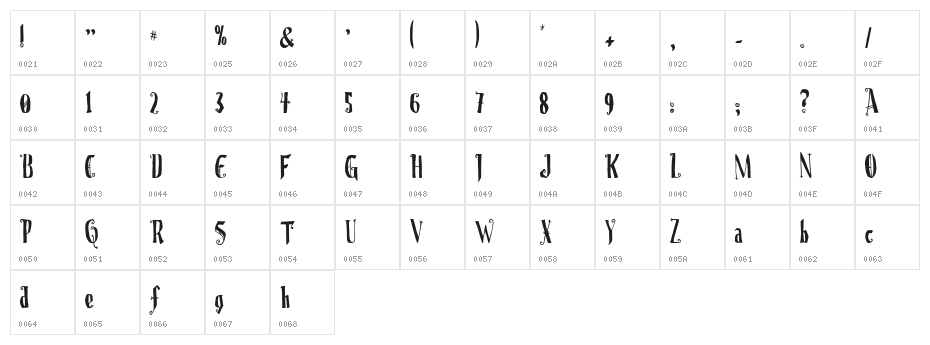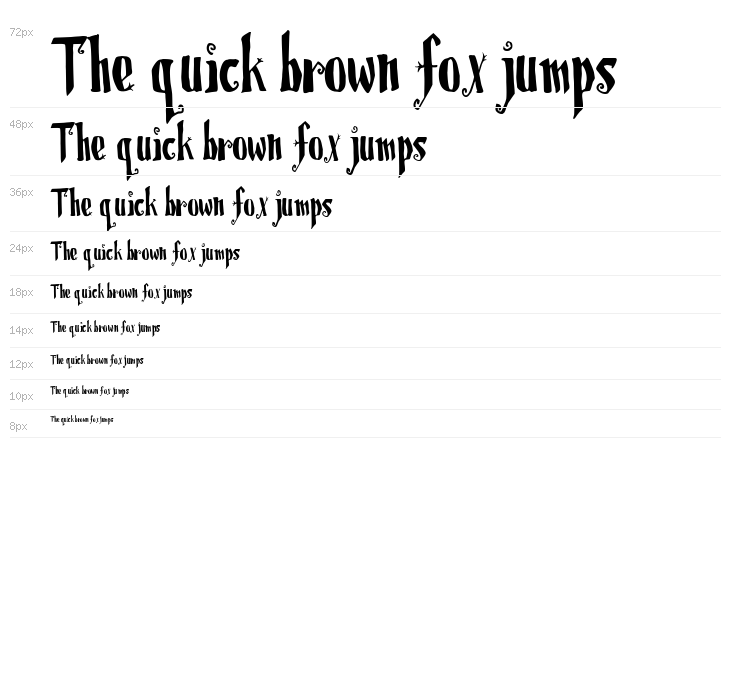
Christmas On Crack Font
Christmas On Crack Description
This whimsical and playful font features a unique blend of quirky, elongated serifs and decorative swirls that give it a festive and lively appearance. The uppercase letters are tall and narrow, with exaggerated curves and flourishes that add a touch of elegance and fun. The lowercase letters maintain a consistent style, with some characters featuring distinctive loops and curls. Numbers and special characters are designed to match the overall playful theme, making this font ideal for creative and eye-catching designs. Its distinct style is perfect for holiday-themed projects, adding a sense of joy and celebration.